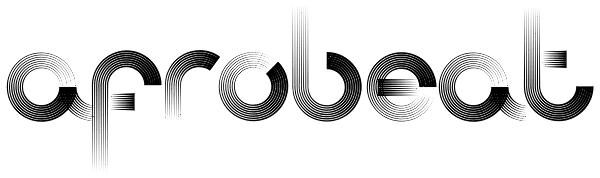
Afrobeat
Inspiration The pounding tribal rhythms of Afrobeat music is expressed through this psychedelic brand new font, Afrobeat. Every letter becomes art as every letter is elegantly placed side by side, like music notes, creating music for the eyes...